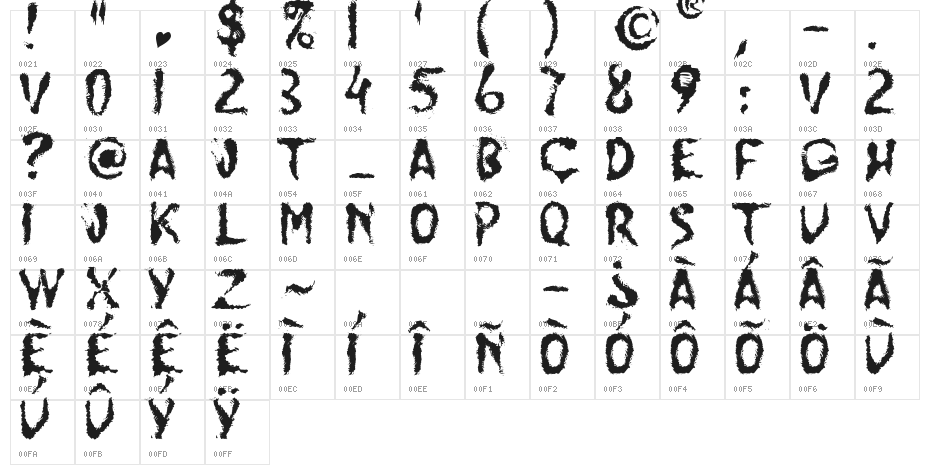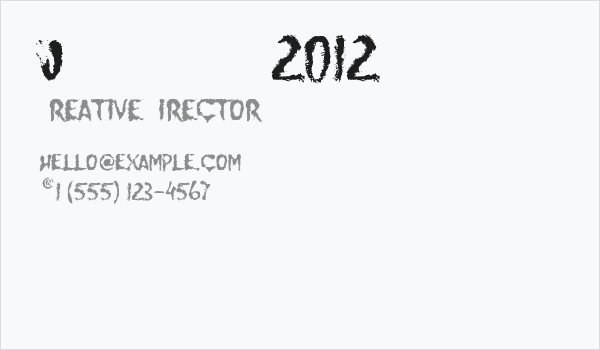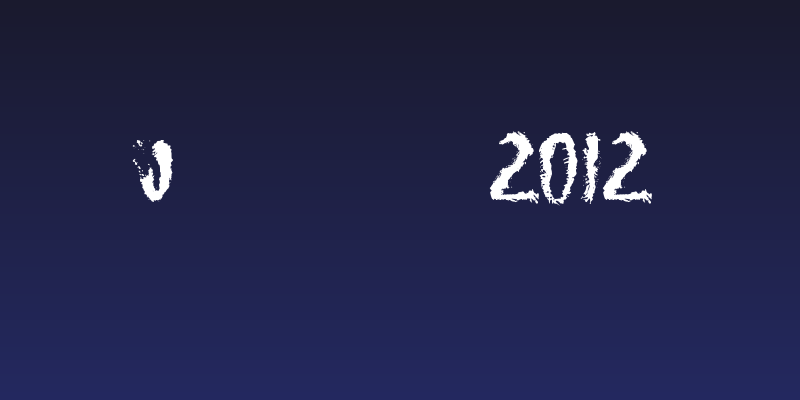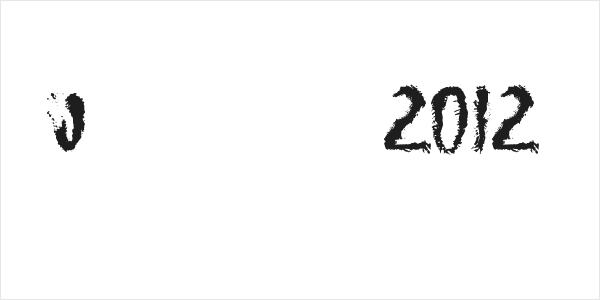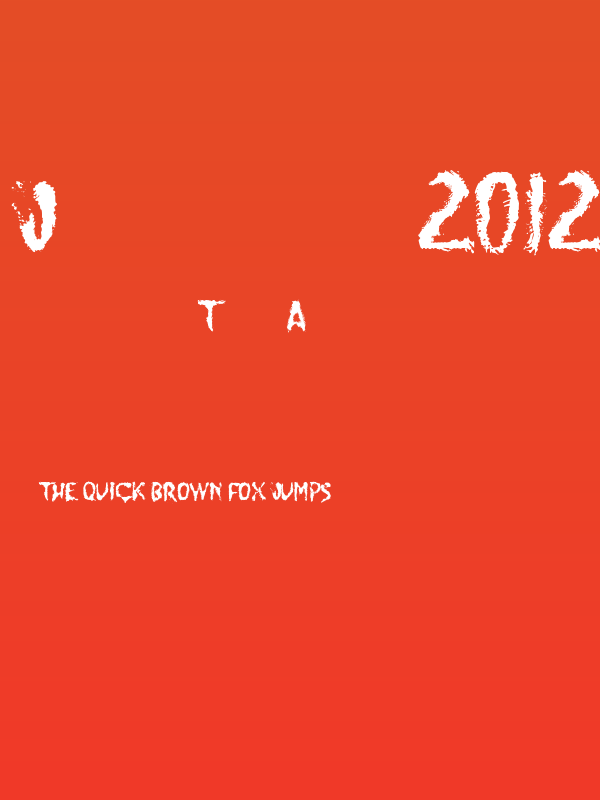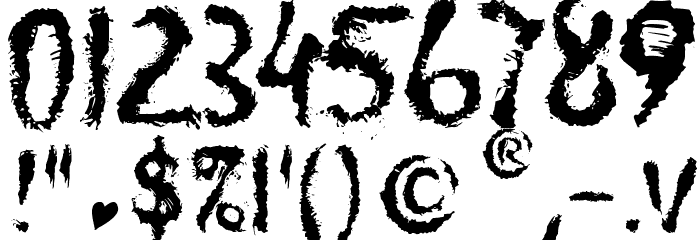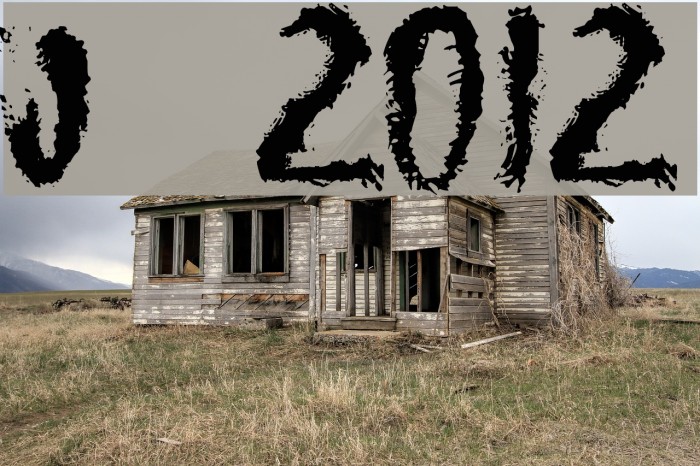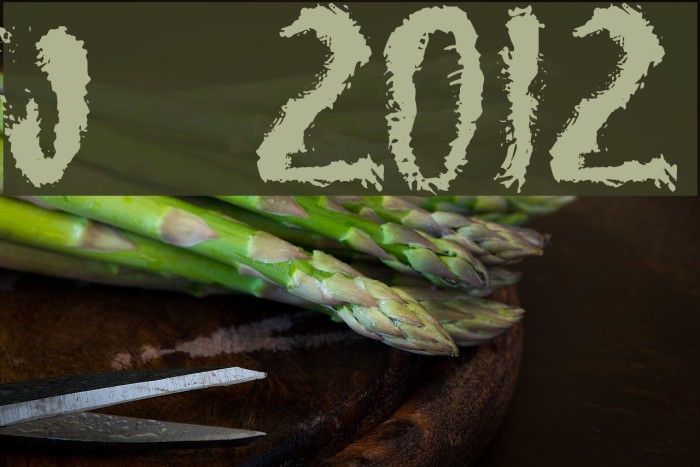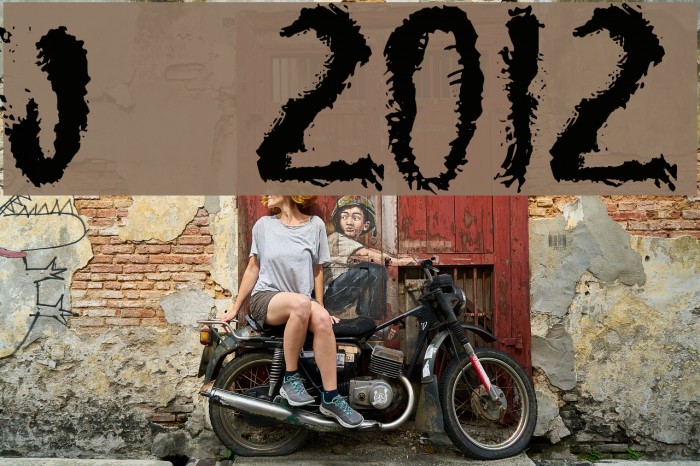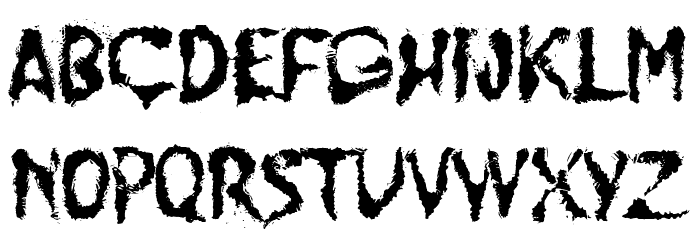
JUMP BURN IP 2012 Font
This font features a bold, distressed style with a rough, textured appearance reminiscent of brush strokes or splatters. The characters are irregular and uneven, giving a dynamic and energetic feel. The uppercase and lowercase letters maintain a consistent ruggedness, while the numbers and special characters follow the same aesthetic. This font's unique style makes it suitable for projects that require a bold statement or an edgy, artistic touch.
| Proposed Projects | Ideal for album covers, posters, graffiti art, and edgy branding projects. |